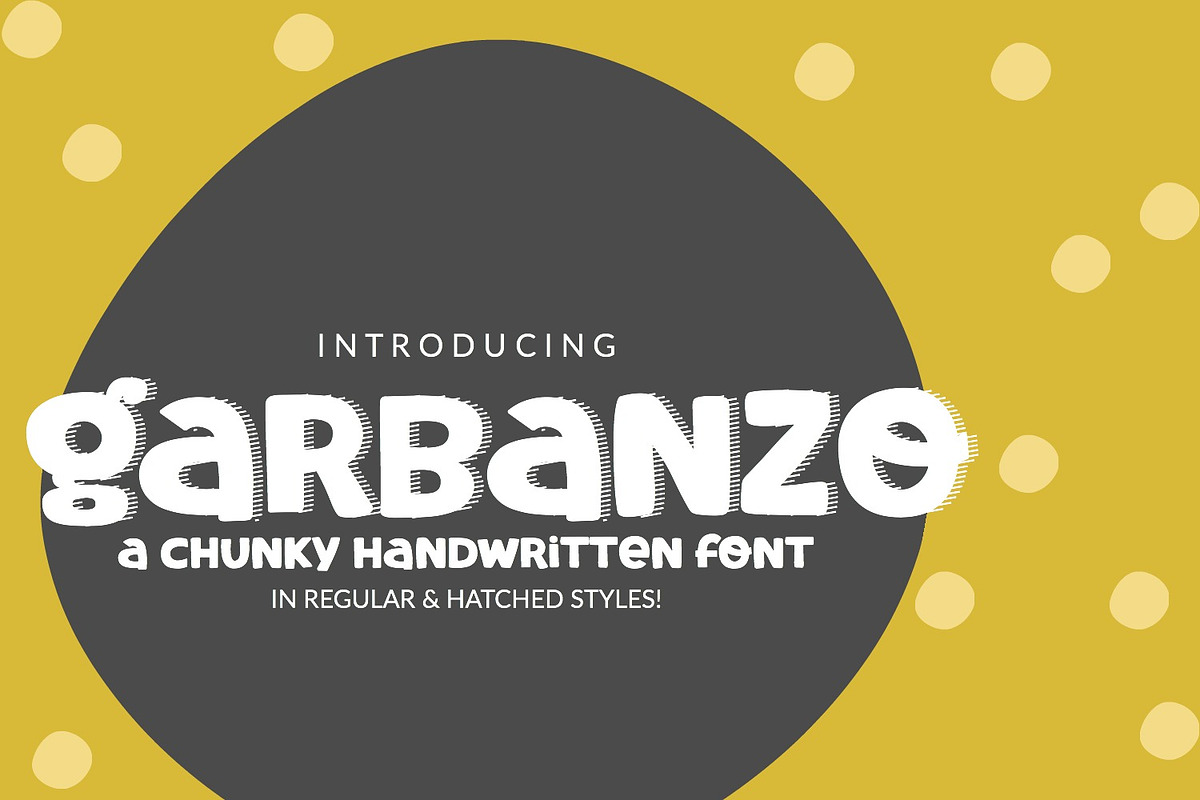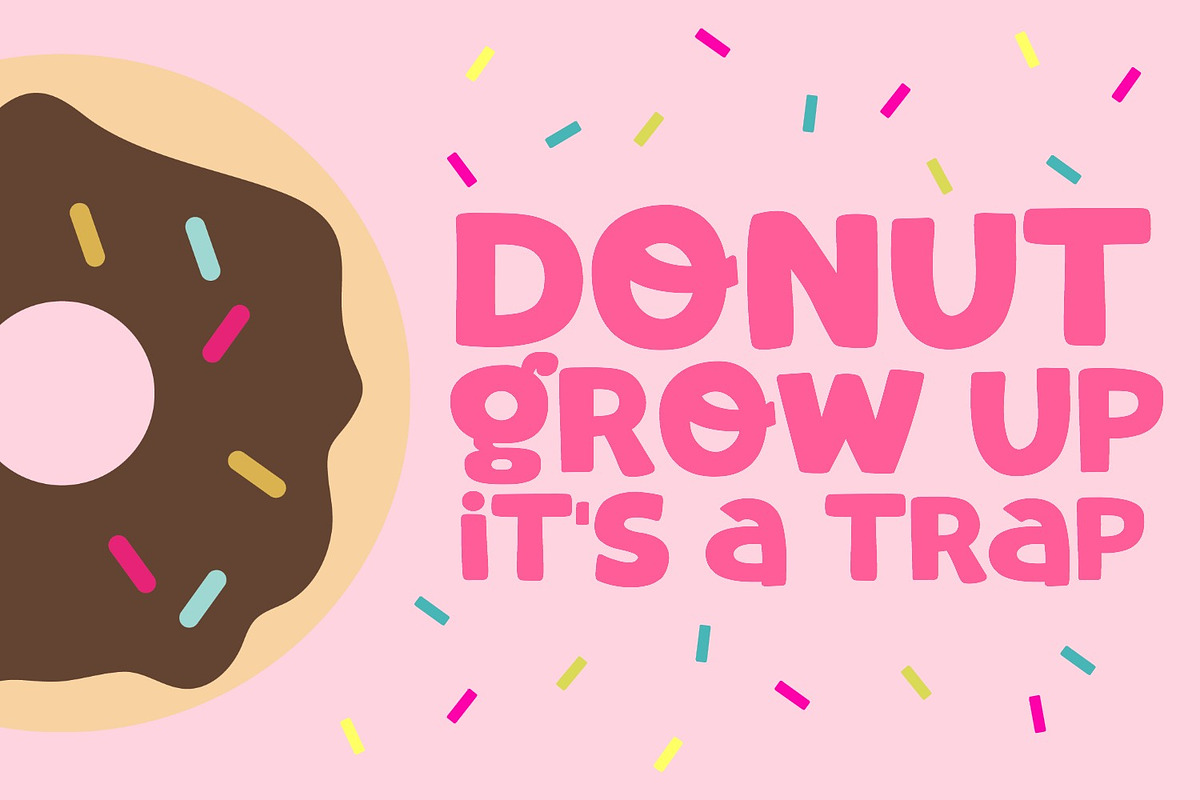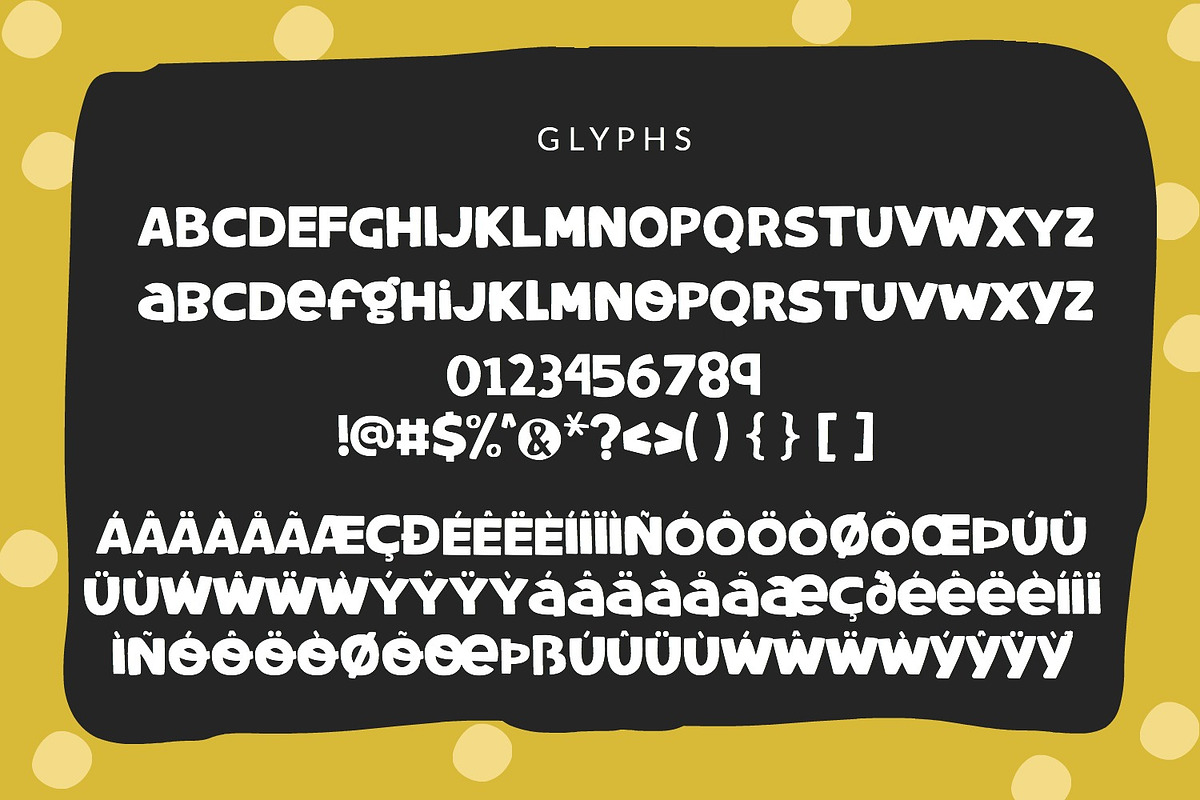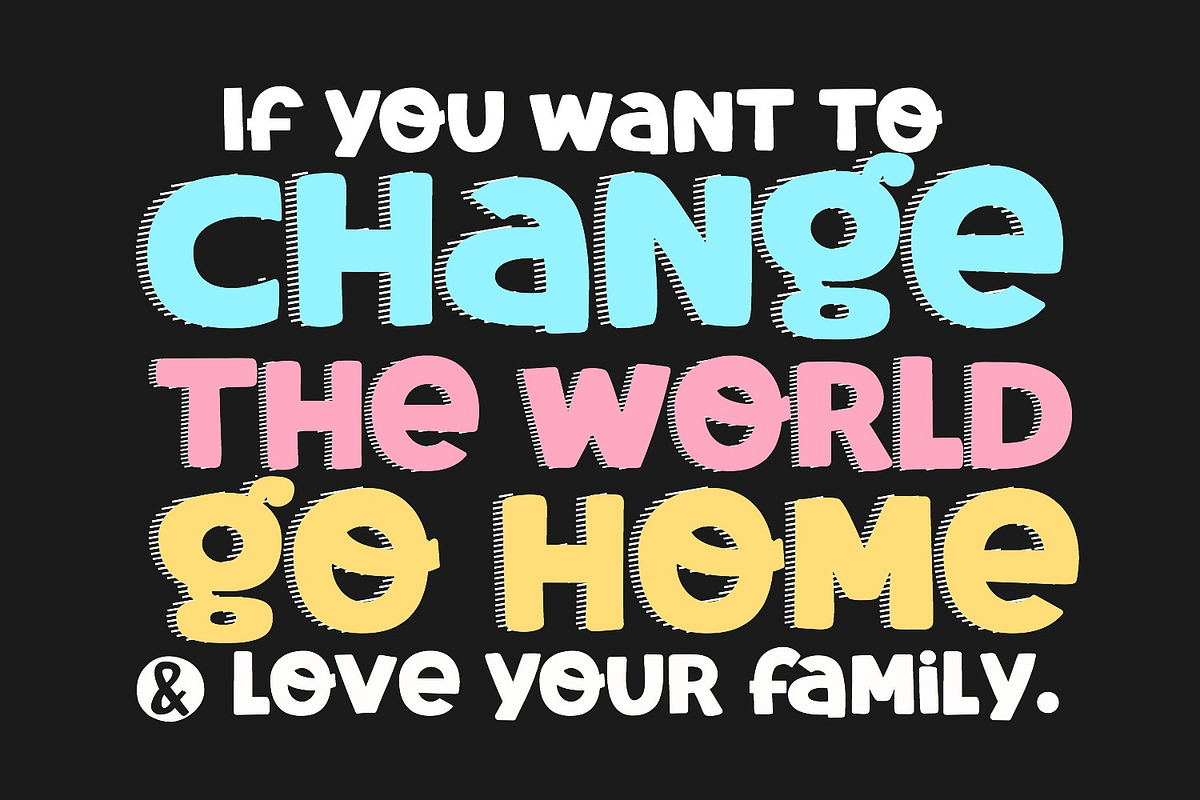
Garbanzo Handwritten Font
Introducing Garbanzo! Garbanzo is a chunky, spunky handwritten font in regular solid and hatched styles that are perfect for layering!
Garbanzo Handwritten Font by Sabrina Schleiger Design fits naturally into Branding, posters, packaging, typography.